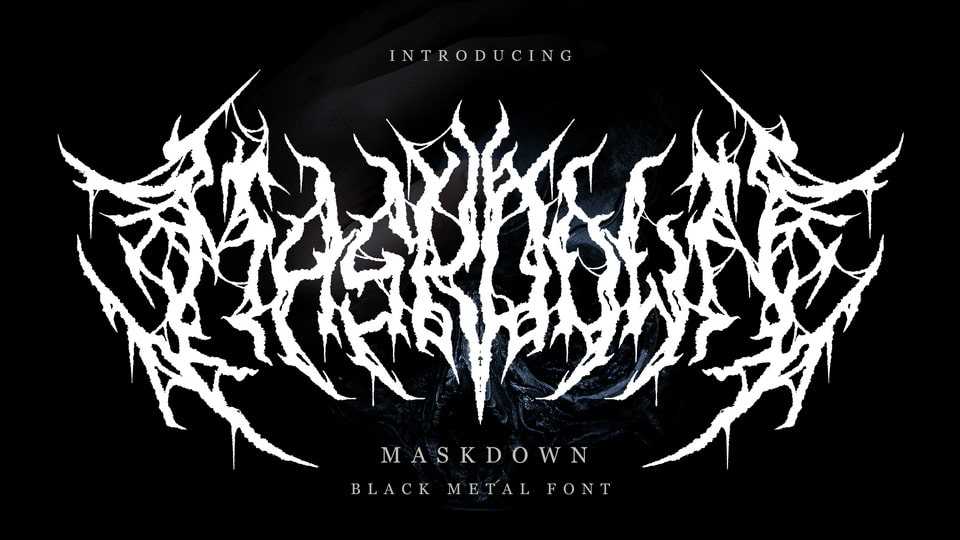
Download Maskdown font, a carefully crafted typeface, which features a very heavy black metal feel. Maskdown is suitable for metal band logos, merchandise, clothing, apparel, or anything that needs a black metal feel.